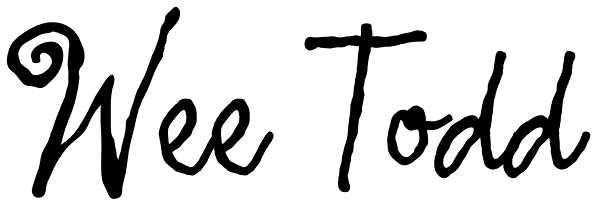
Wee Todd
Wee Todd is a well-connected script font in the rough style of a lefty. Several of my closest friends are lefties and I, over the years, have carefully observed their writing style. For the most part they have unique, interesting handwriting and Wee...